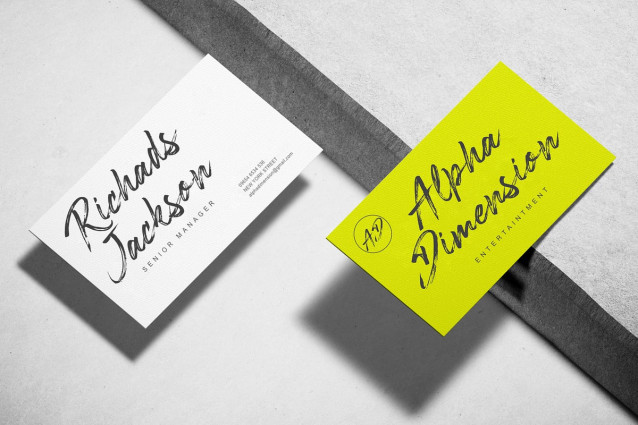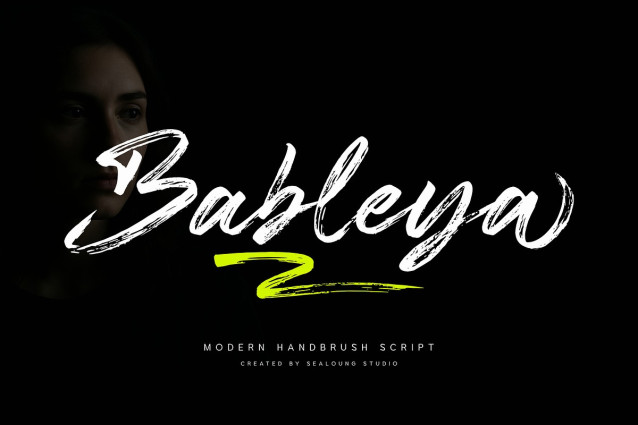
Bableya Brush Font
Bableya Brush Font is a stylish modern brush font with charming details. Its brush strokes bring a friendly and engaging feel, making it a great choice to elevate your design projects.
Bableya is perfect for branding, logos, wedding invitations, social media content, advertising, product packaging, product design, labels, photography, watermarks, stationery, and any project that needs a handwritten touch.